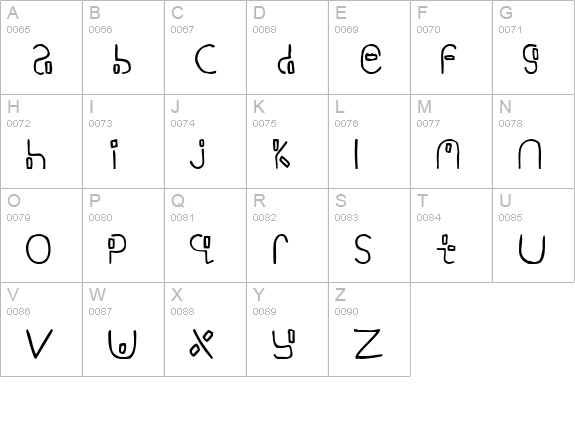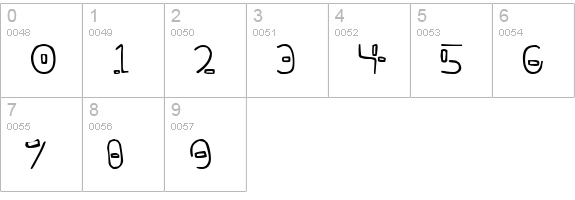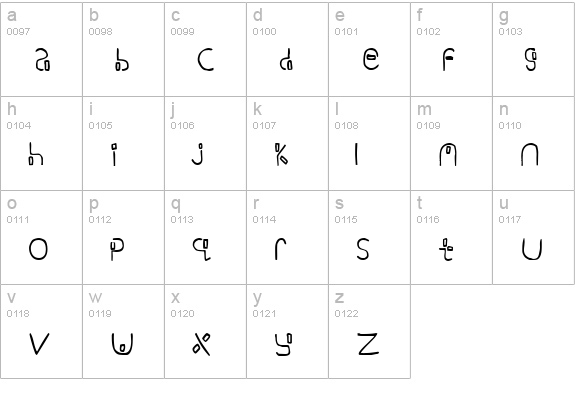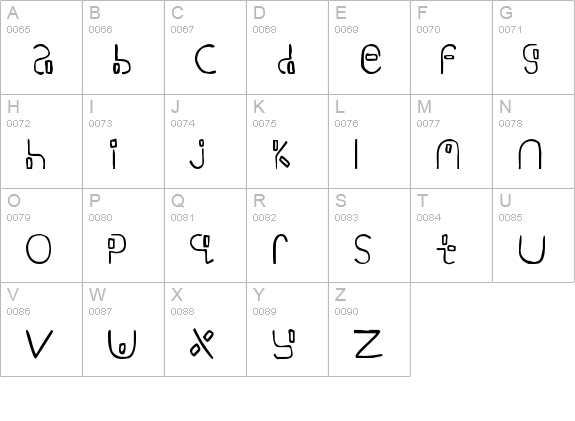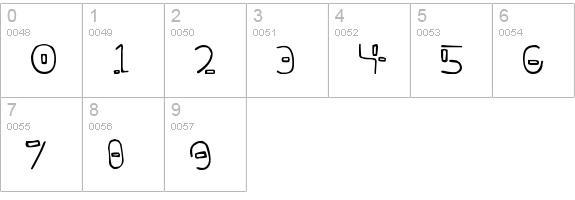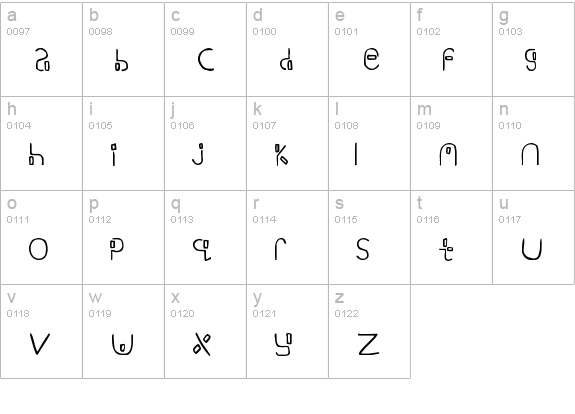
Yikatu font is a modern and stylish typeface that exudes elegance and sophistication. With its clean lines and smooth curves, this font is perfect for a wide range of design projects, from branding to advertising to web design. The versatility of Yikatu font makes it a great choice for both digital and print applications. What sets Yikatu font apart is that it is not only visually appealing but also completely free to use. Yes, you read that right - this beautiful font can be downloaded for free at FontsMarket.com. Whether you are a professional designer or a hobbyist looking to add a touch of class to your creations, Yikatu font is the perfect choice. Say goodbye to expensive font licenses and limited options - with Yikatu font, you have the freedom to unleash your creativity without breaking the bank. Download this stunning font today and elevate your designs to a whole new level.